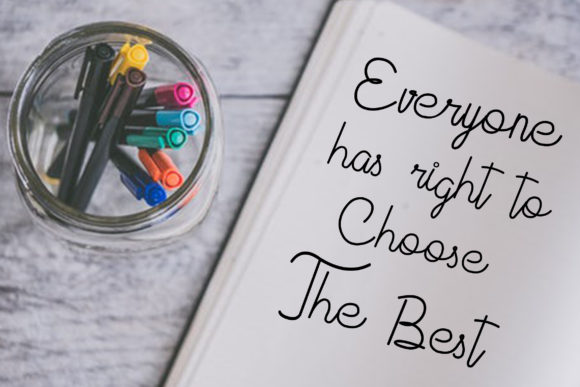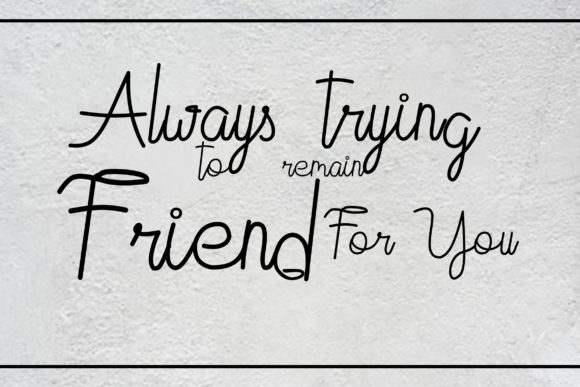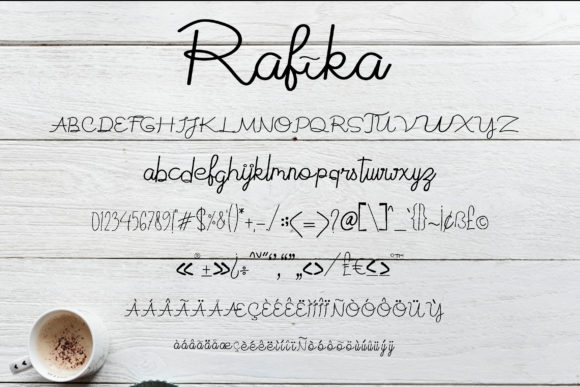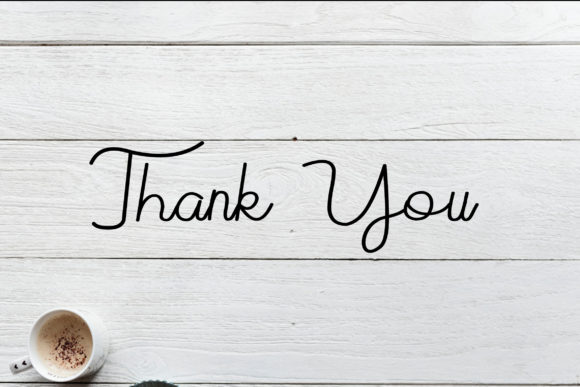
Introduction to Rafika Font
The Rafika is a modern script font with a beautiful fresh style.
It can be used for logos, invitations, magazines, photos, quotes, posters, wedding, business cards, branding, and much more .
Key Features of Rafika Font